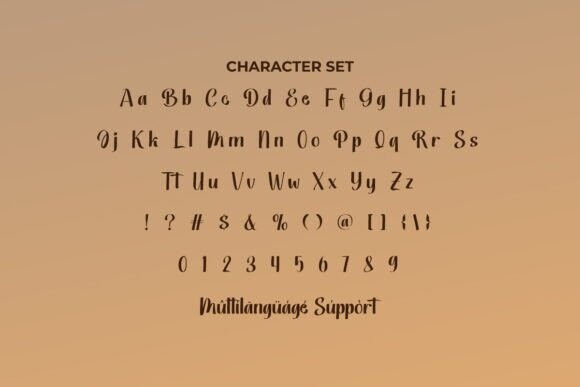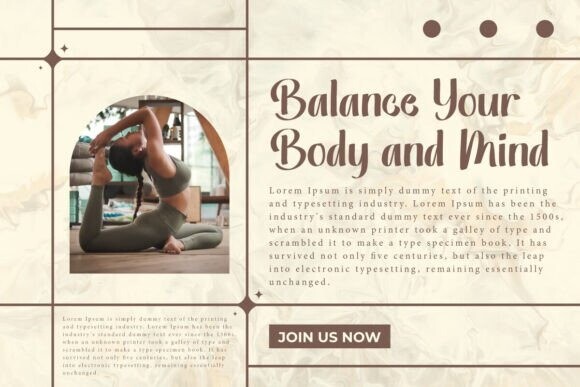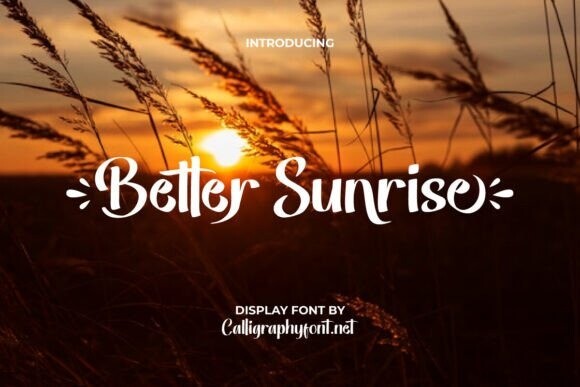
Better Sunrise Font
Designer: CalligraphyFonts
Better Sunrise Font is a modern display font with beautiful brush strokes around each character, created by CalligraphyFonts. This typography is one of the many types of lettering with an understated look that will be perfect for any creative project, such as apps, billboards, brand logos, brochures, business cards, flyers, greeting cards, headers, invitation, labels, product packaging, poster, price tag, quotes, screen print, stationery, title, website, and many more.
Better Sunrise Font is a classy font that is perfect both in single-use and in combination with other types of font styles. It will be great for any industry, including accessories, advertisement, authors, beauty vloggers, café, content creators, cosmetics, event organizers, fashion brands, furniture, graphic design, handicraft, health fitness, interior design, photography, printing, publishing, restaurant, skincare, wedding, writer, etc.